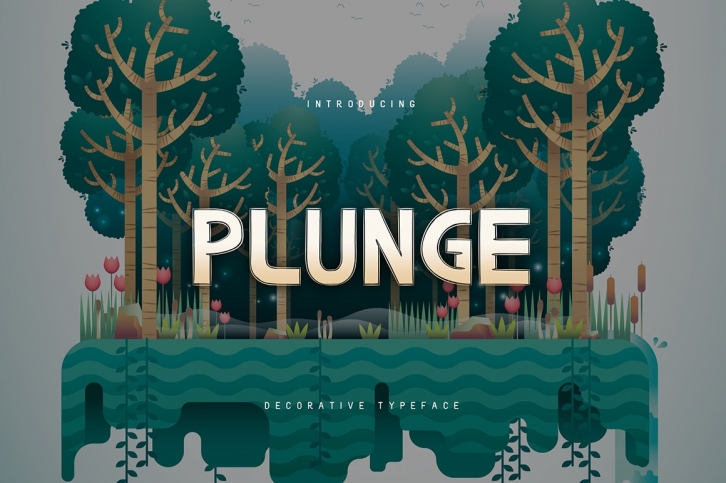
Plunge has simple and bold yet mysterious characteristics that revolves around sci-fi theme. The thin outline adds a unique vibe to this typeface. Good for titles, headlines, body text, or labels, etc.